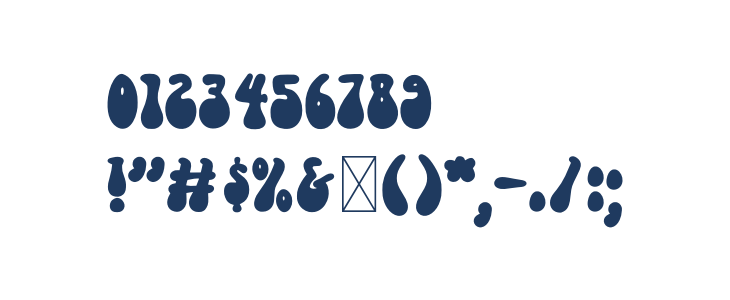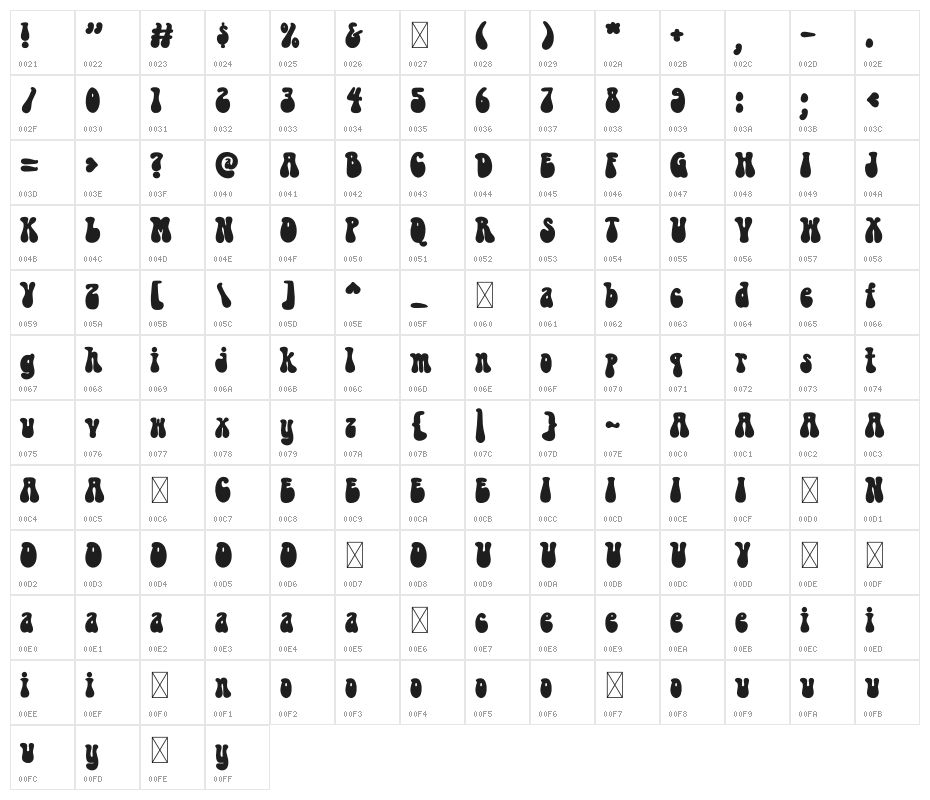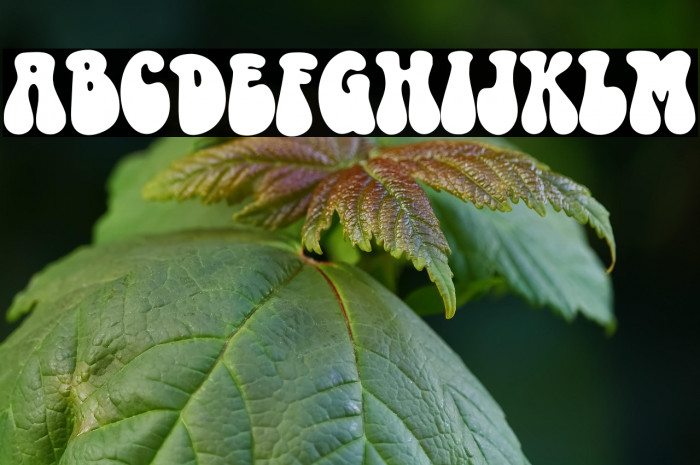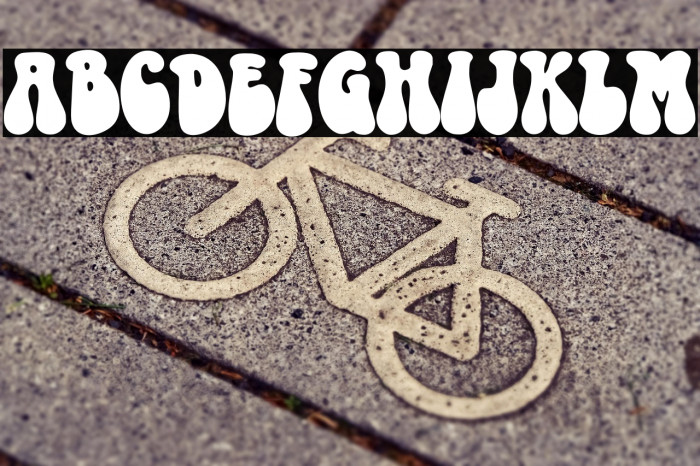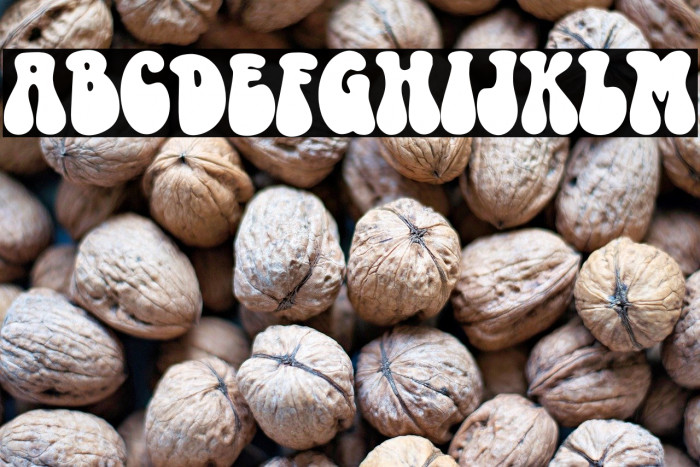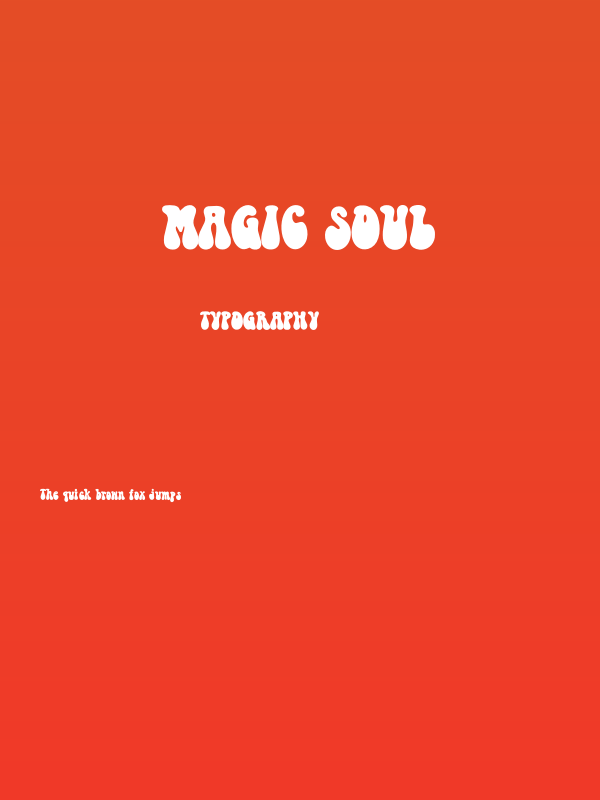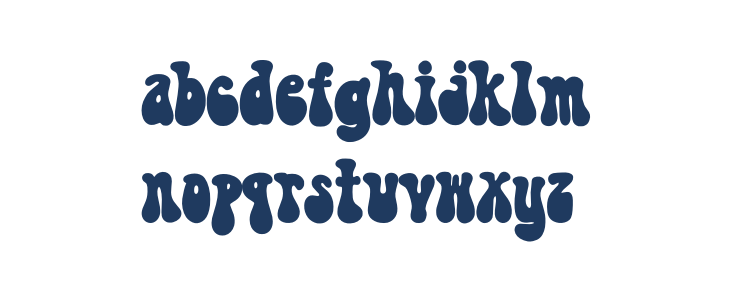
MAGIC SOUL Font
MAGIC SOUL Description
This font features a bold and playful design with a distinctly retro vibe. The characters are rounded and bulbous, creating a sense of movement and fluidity. The thick strokes and exaggerated curves give it a whimsical and eye-catching appearance, making it ideal for creative and artistic projects. The uppercase and lowercase letters maintain a consistent style, while the numbers and special characters are equally bold and expressive. This font is perfect for adding a touch of nostalgia and fun to any design.
| Overall Style | Retro, Whimsical |
| Proposed Projects | Ideal for posters, album covers, children's books, and retro-themed designs. |